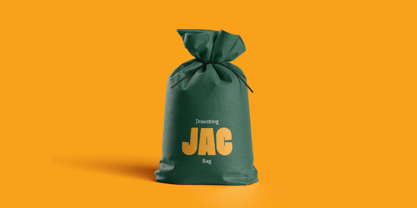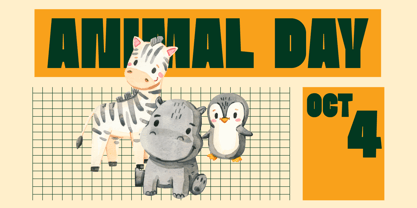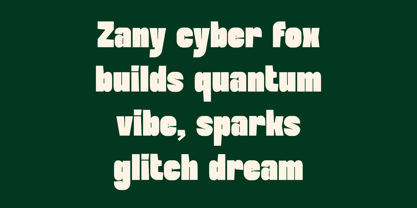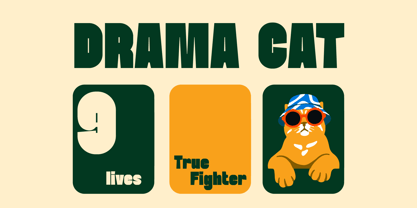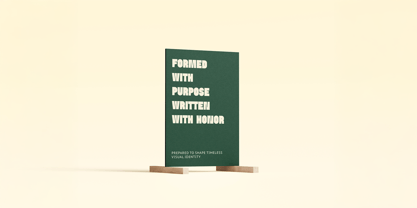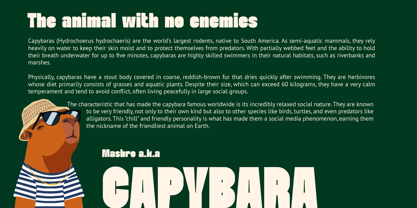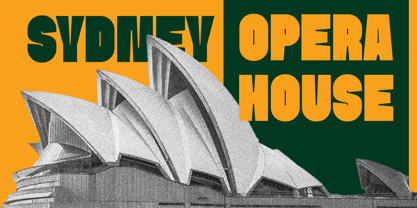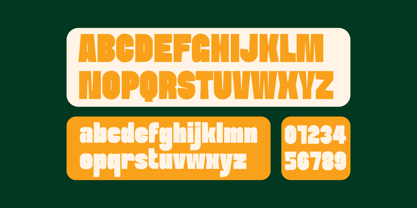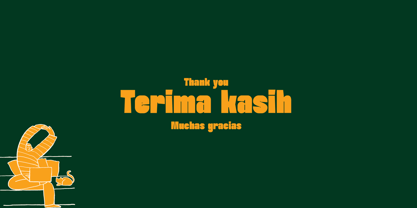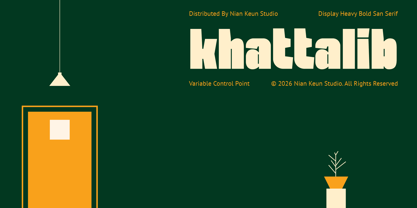
Khattalib
Khattalib is a display heavy sans serif font built with strength, confidence, and bold clarity in mind. Crafted to stand tall in modern design, Khattalib delivers a powerful visual voice through its thick forms and solid structure.
Designed for creators who dare to be seen, this typeface works perfectly for branding, posters, headlines, logos, and statement-driven visuals. Its variable control point feature gives you flexibility to explore a wide range of weight and presence, making every composition feel dynamic and alive.
Khattalib is not just a font, it’s a statement of power, precision, and modern identity.
Perfect for:
* Branding & logo design
* Posters & headlines
* Websites & UI design
* Editorial & magazines
* Social media content
* Digital ads & presentations
Designers: Mugi Raharjo
Foundry: Nian Keun Studio